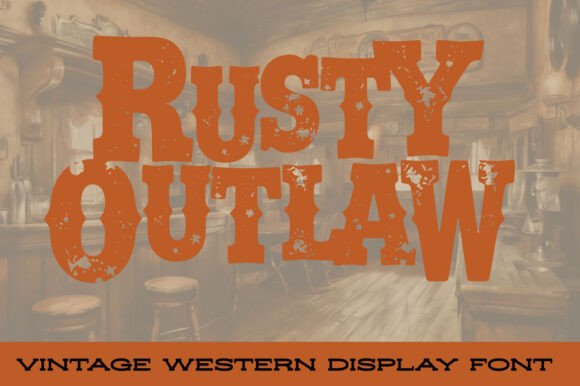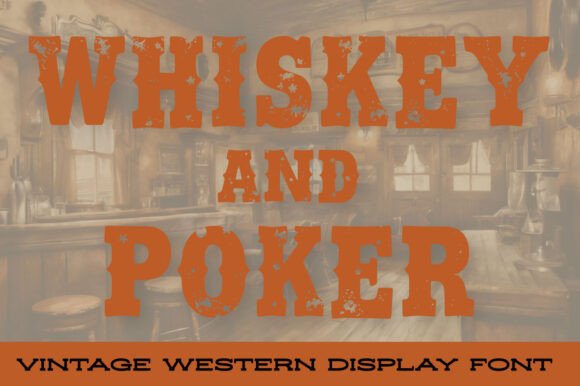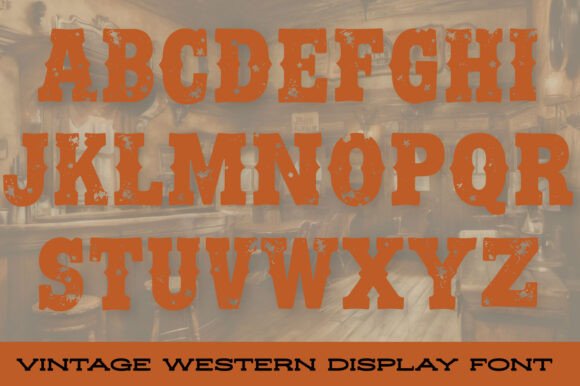
Ride into the wild frontier with Rusty Outlaw, a bold and weathered Old West-inspired stamp-style font. Its rugged, distressed details capture the grit and spirit of a bygone era, perfect for adding a touch of outlaw charm to your designs.
Whether you’re crafting vintage posters, rustic logos, or western-themed branding, Rusty Outlaw delivers a strong, hand-stamped look that stands out. From saloon signs to modern designs with a frontier twist, this font adds bold character and authentic, rough-hewn flair.
Saddle up with Rusty Outlaw—it’s bold, it’s wild, and it’s ready to ride.